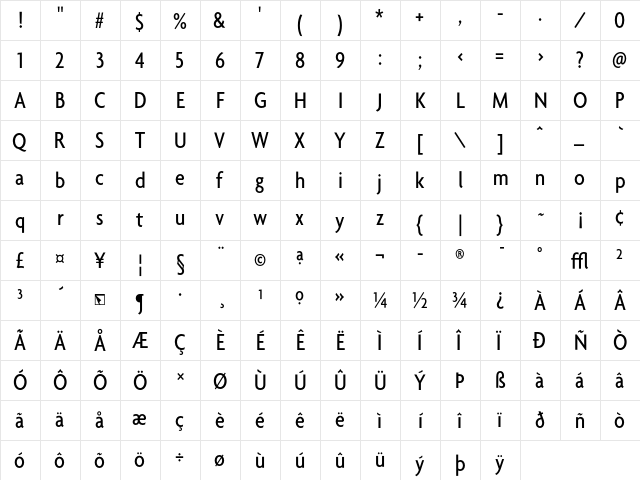
Agenda MediumCondensed
Design Context for Agenda Typeface
Agenda is a composed and adaptable typeface that performs quietly and consistently across a wide range of design contexts. The condensed width makes it efficient for tight spaces without sacrificing legibility.
Pro Tip: Pair Agenda with a font of contrasting weight or personality to build a more expressive typographic hierarchy.